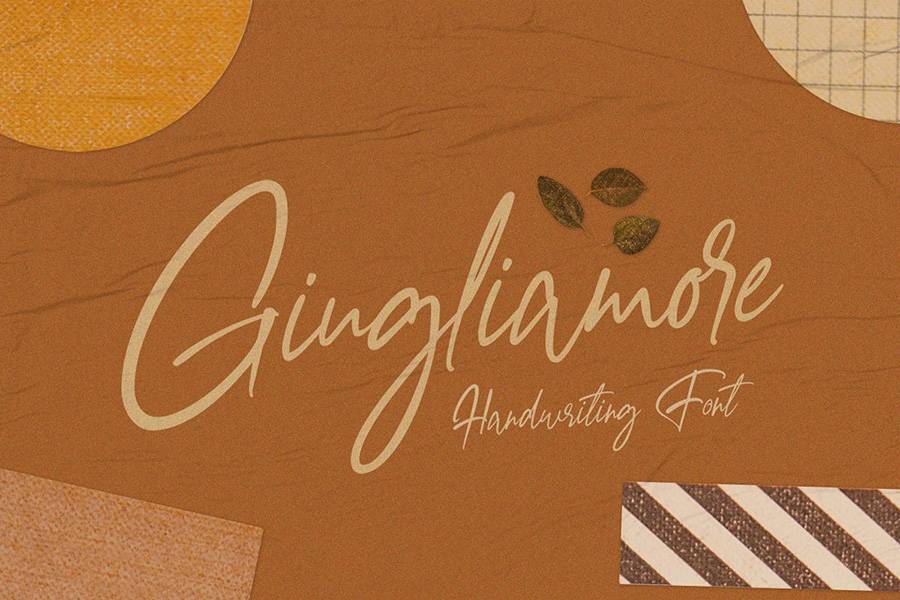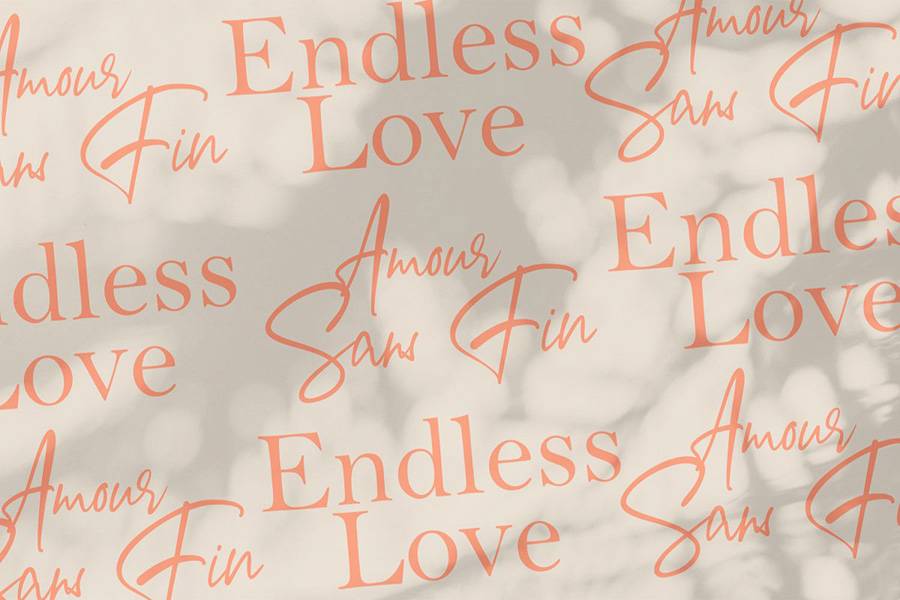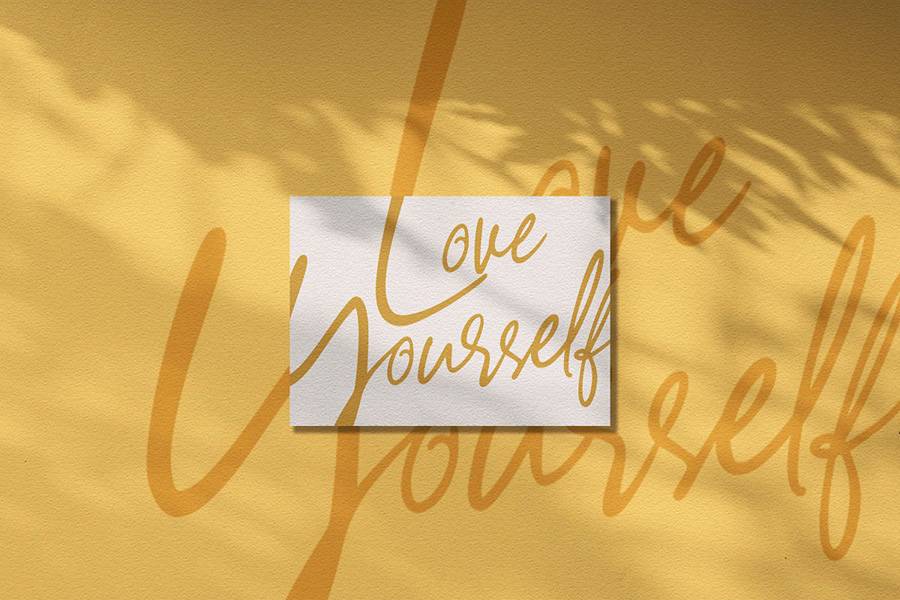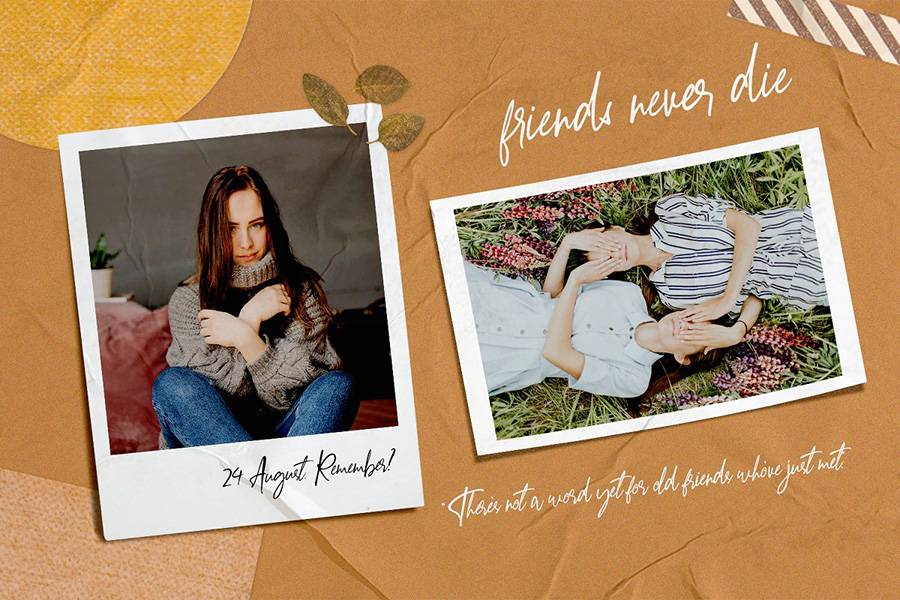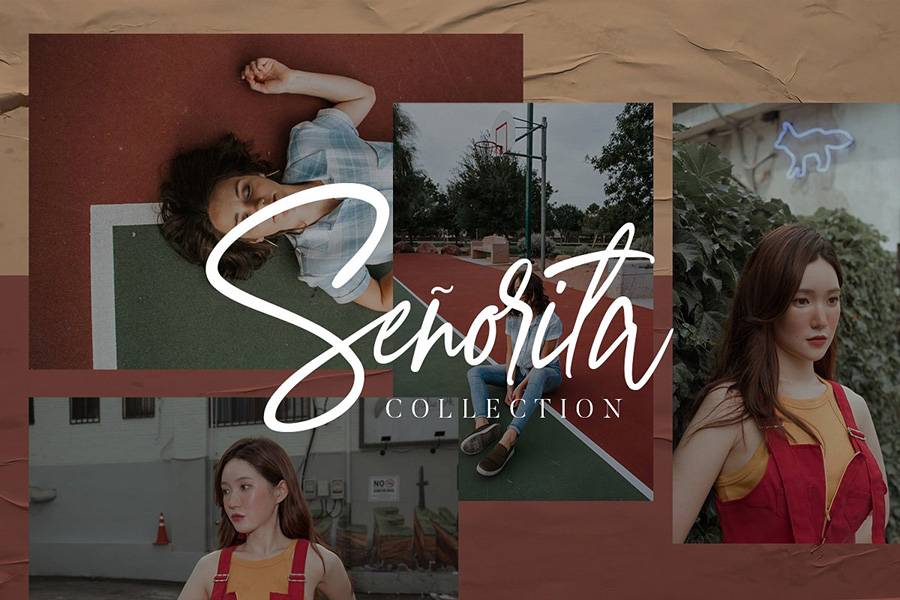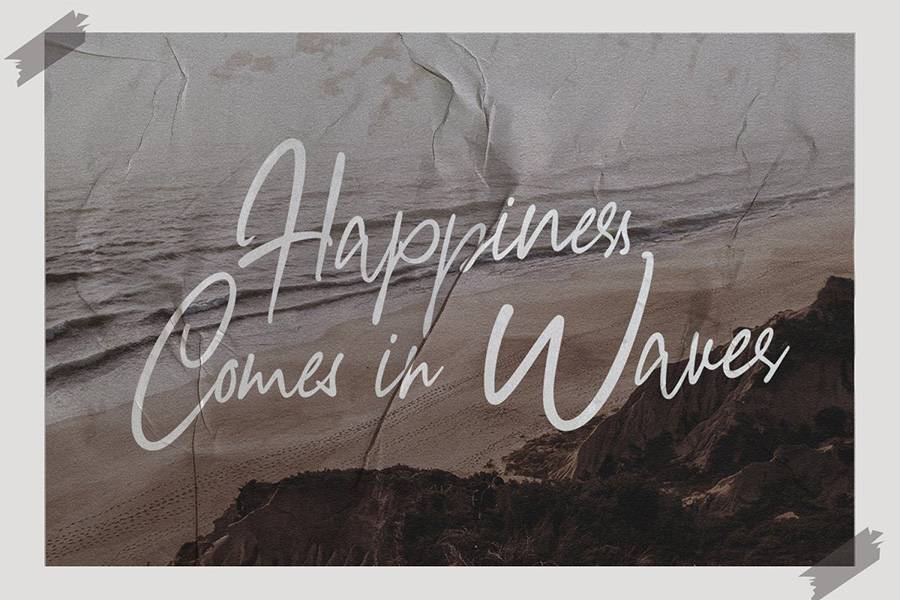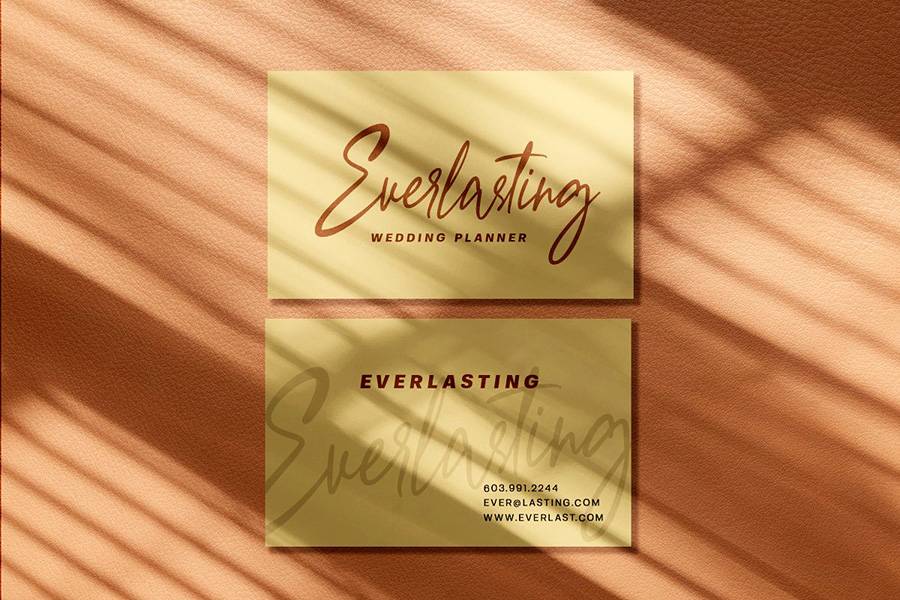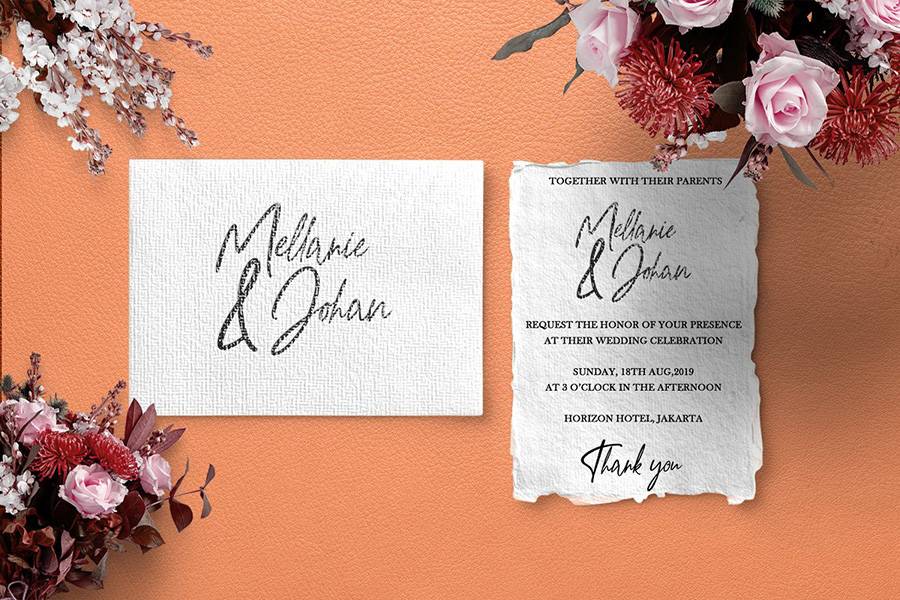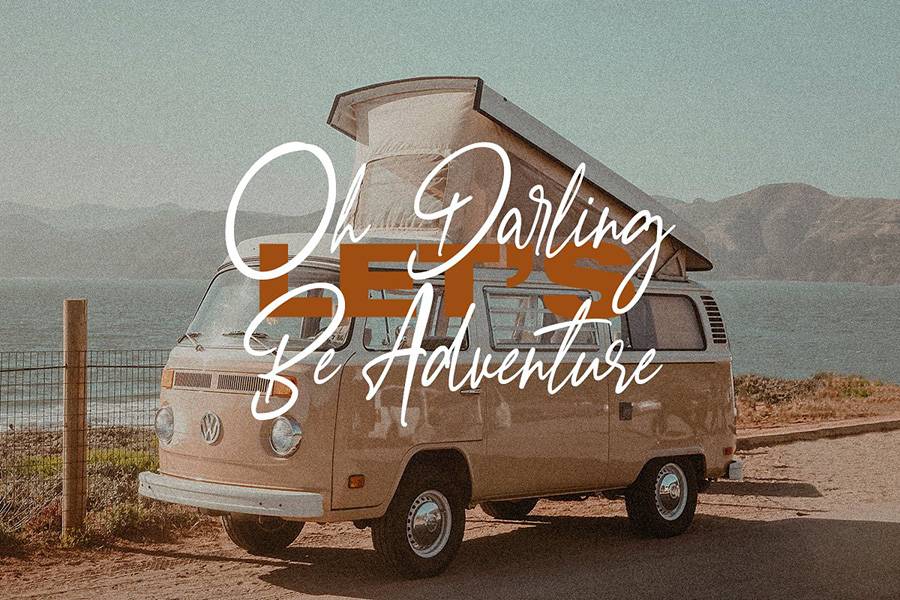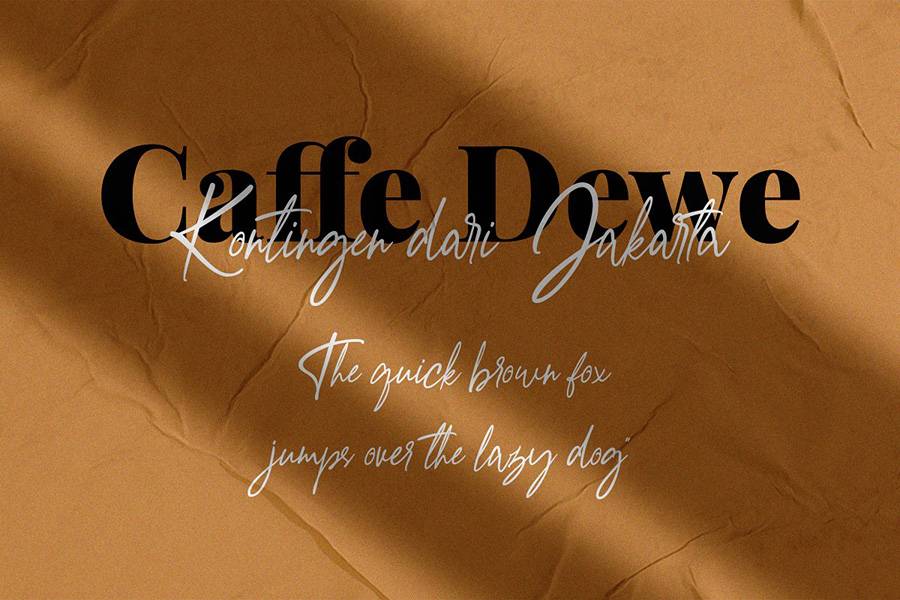
Giugliamore Handwriting Script
Giugliamore Handwriting Script is a modern signature, It is perfect for blogging, social media, branding, product packaging, wedding invitations, branding, headlines, signage, labels, signature, book covers, posters, quotes and more.